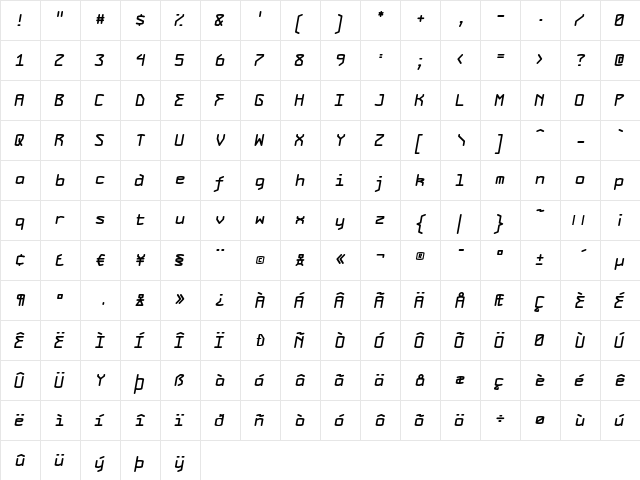
MonolithBold Italic Font Preview
MonolithBold Italic
Design Context for MonolithBold Typeface
MonolithBold brings the precise, column-aligned rhythm of monospaced typography to designs that value technical clarity and systematic order. The dynamic lean of this cut emphasises speed and emphasis in any layout. The heavy weight commands attention and anchors typographic hierarchies.